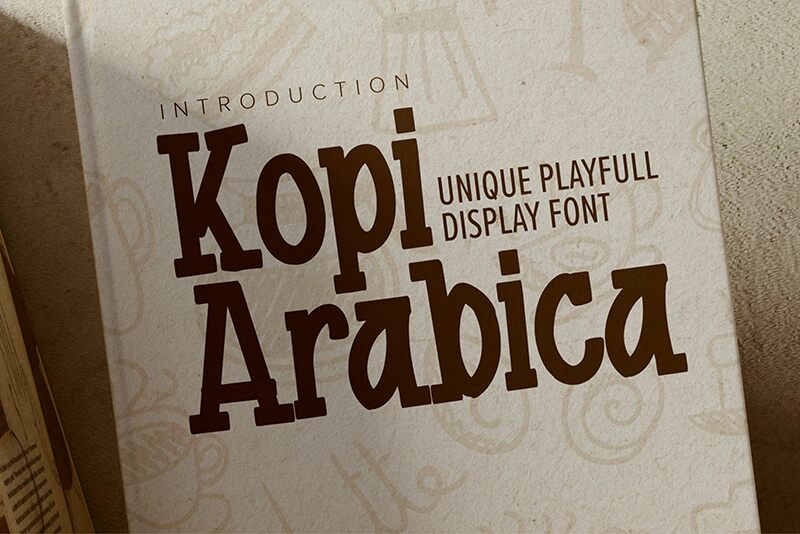
Introducing Kopi Arabica, a narrow display font designed by Anang F & Malik Wsn of Gassstype Studio. This cheerful cartoon font is perfect for adding a whimsical touch to any project, from children's books to party invitations.
Kopi Arabica